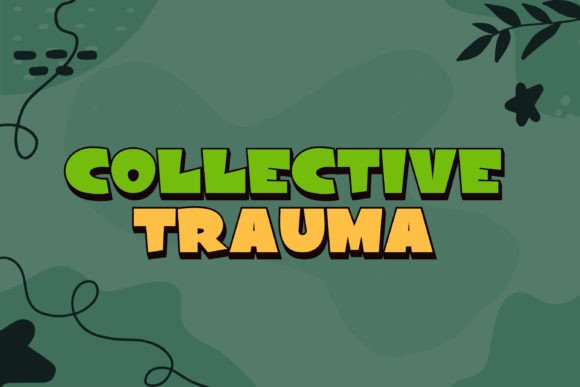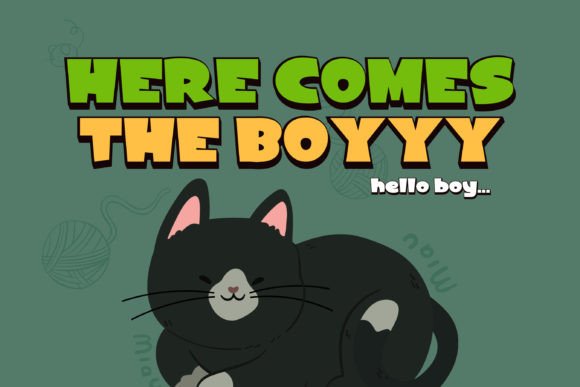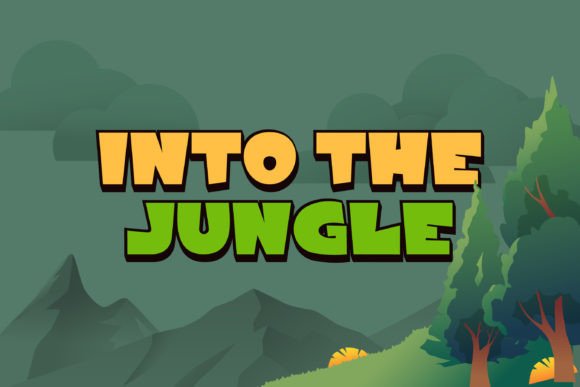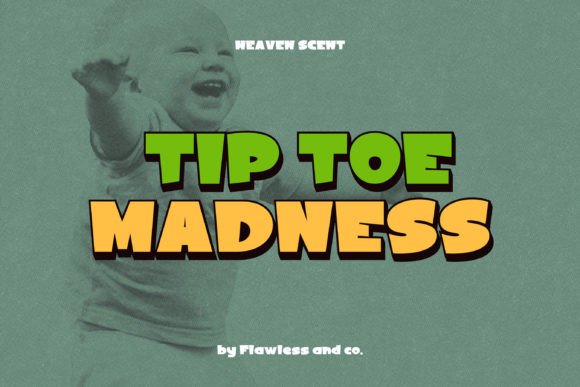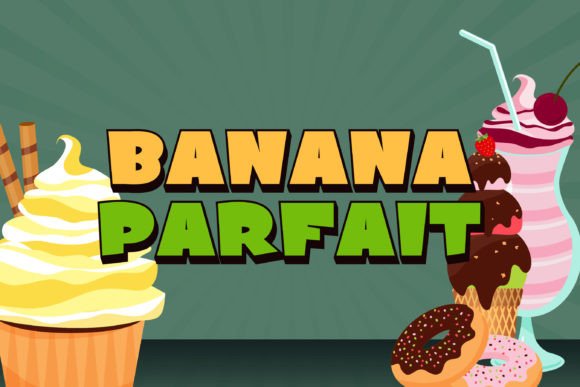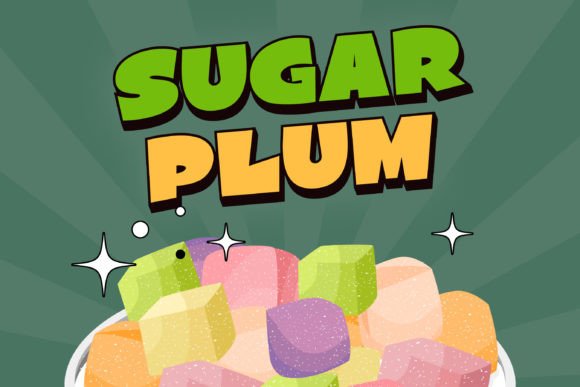
Introducing “Heaven Scent” – A Modern Display Font
Welcome to the captivating world of “Heaven Scent,” a modern display font that is sure to add a delightful twist to your design projects. This fresh and vibrant font effortlessly combines contemporary flair with comic-inspired charm, making it a versatile choice for a range of creative endeavors.
A Font that Stands Out
“Heaven Scent” is a modern display font that boasts a unique personality, setting it apart from other fonts in its category. Its clean lines, subtle curves, and distinctive features make it an excellent choice for designers looking to add a touch of sophistication and playfulness to their work.
Key Features of Heaven Scent Font
- Regular and Extrude Type Fonts: “Heaven Scent” comes with two font styles – regular and extrude. The regular font is perfect for body text, headings, and titles, while the extrude font adds a 3D effect, making it ideal for eye-catching displays and attention-grabbing headlines.
- Modern Display Font: This font is designed specifically for display purposes, making it perfect for large-scale designs, such as posters, billboards, and digital displays.
- Comic-Inspired Charm: “Heaven Scent” has a playful, comic-inspired vibe that adds a touch of whimsy to your designs. This makes it an excellent choice for projects that require a dash of personality and humor.
- Contemporary Flair: With its clean lines and modern aesthetic, “Heaven Scent” is perfect for designers looking to create fresh and contemporary designs.
Use Cases for Heaven Scent Font
“Heaven Scent” is a versatile font that can be used in a variety of creative projects, including:
- Posters and Flyers: Add a touch of personality to your posters and flyers with “Heaven Scent.” Its bold and playful design makes it perfect for advertising, promotions, and events.
- Digital Displays: Use “Heaven Scent” to create eye-catching digital displays, such as website headers, social media graphics, and mobile app interfaces.
- Logos and Branding: “Heaven Scent” can be used to create unique and memorable logos, adding a touch of personality to your brand.
- Packaging Design: Add a playful touch to your packaging design with “Heaven Scent.” Its modern aesthetic and comic-inspired charm make it perfect for product labels and packaging.
Why Choose Heaven Scent Font?
With so many fonts available, why choose “Heaven Scent”? Here are a few reasons why this font stands out:
- Unique Personality: “Heaven Scent” has a distinctive personality that sets it apart from other fonts.
- Versatility: This font can be used in a variety of creative projects, from posters and flyers to digital displays and logos.
- Easy to Read: Despite its playful design, “Heaven Scent” is easy to read, making it perfect for body text and headings.
In conclusion, “Heaven Scent” is a modern display font that adds a delightful twist to your design projects. With its fresh and vibrant personality, this font effortlessly combines contemporary flair with comic-inspired charm, making it a versatile choice for a range of creative endeavors. Whether you’re a designer, craft, or simply looking for a unique font to add to your collection, “Heaven Scent” is an excellent choice.